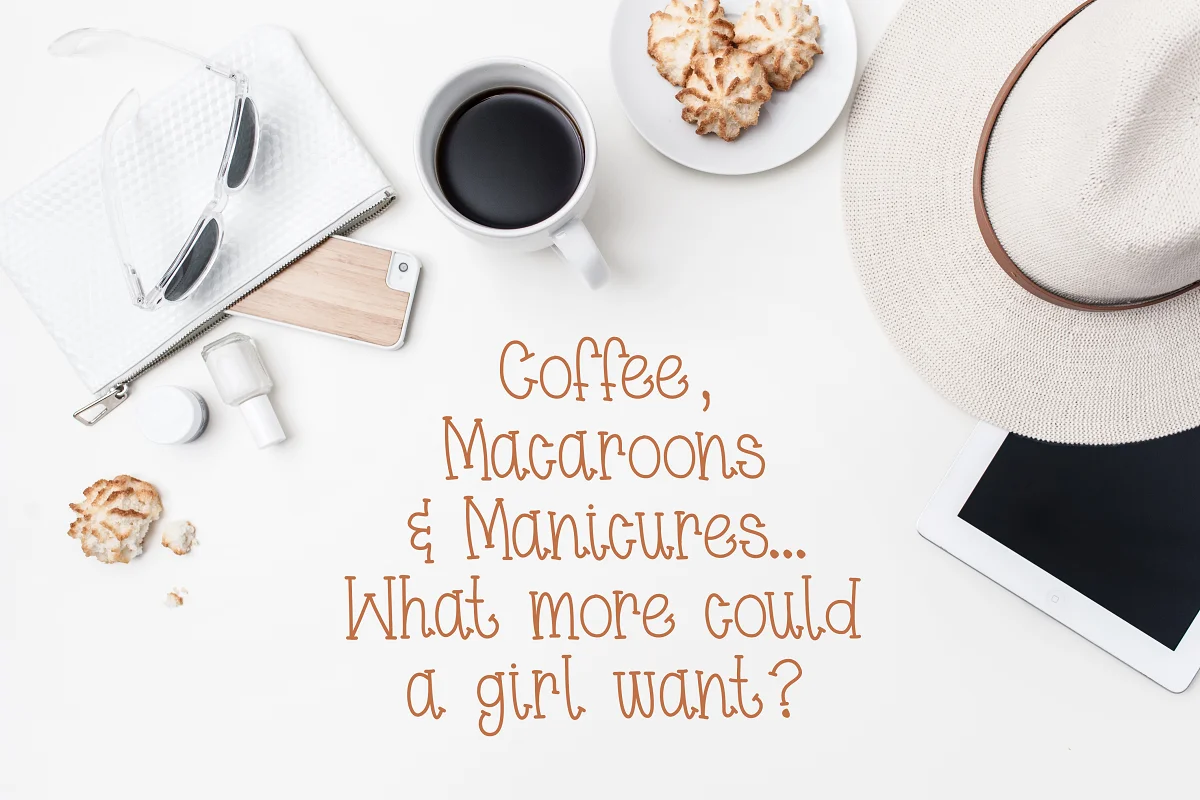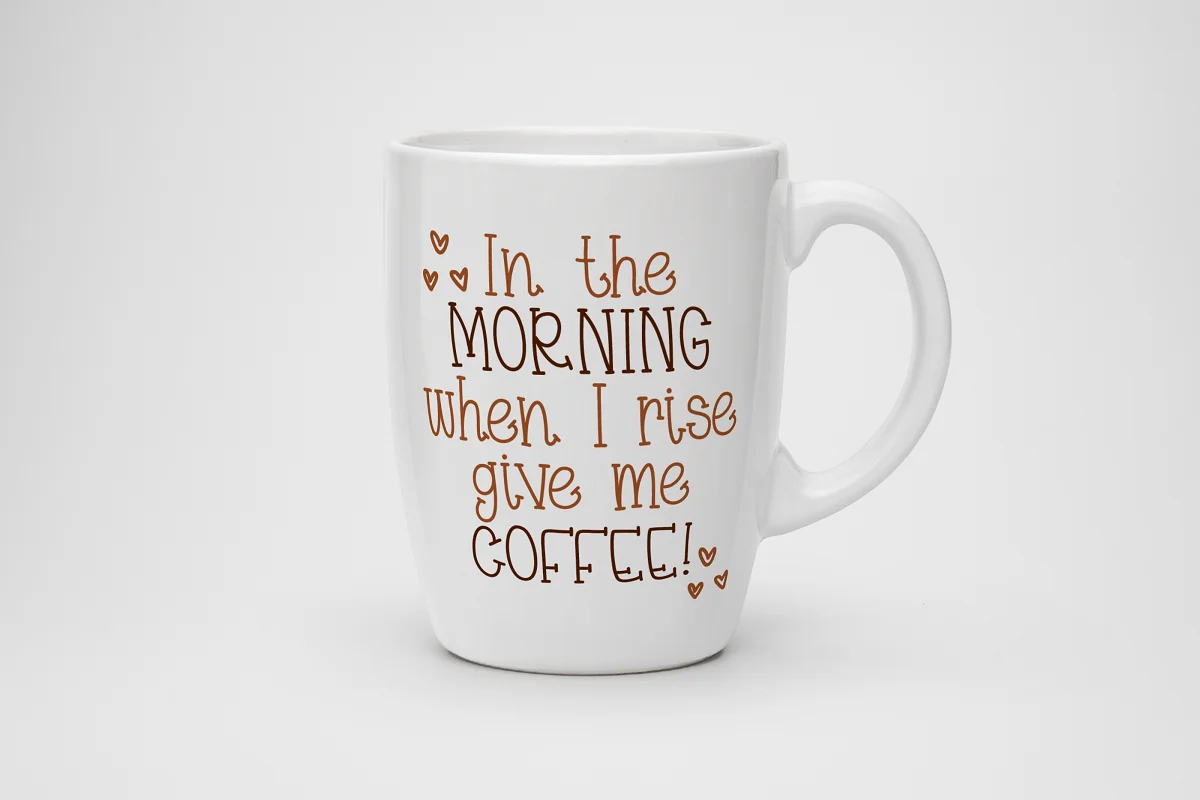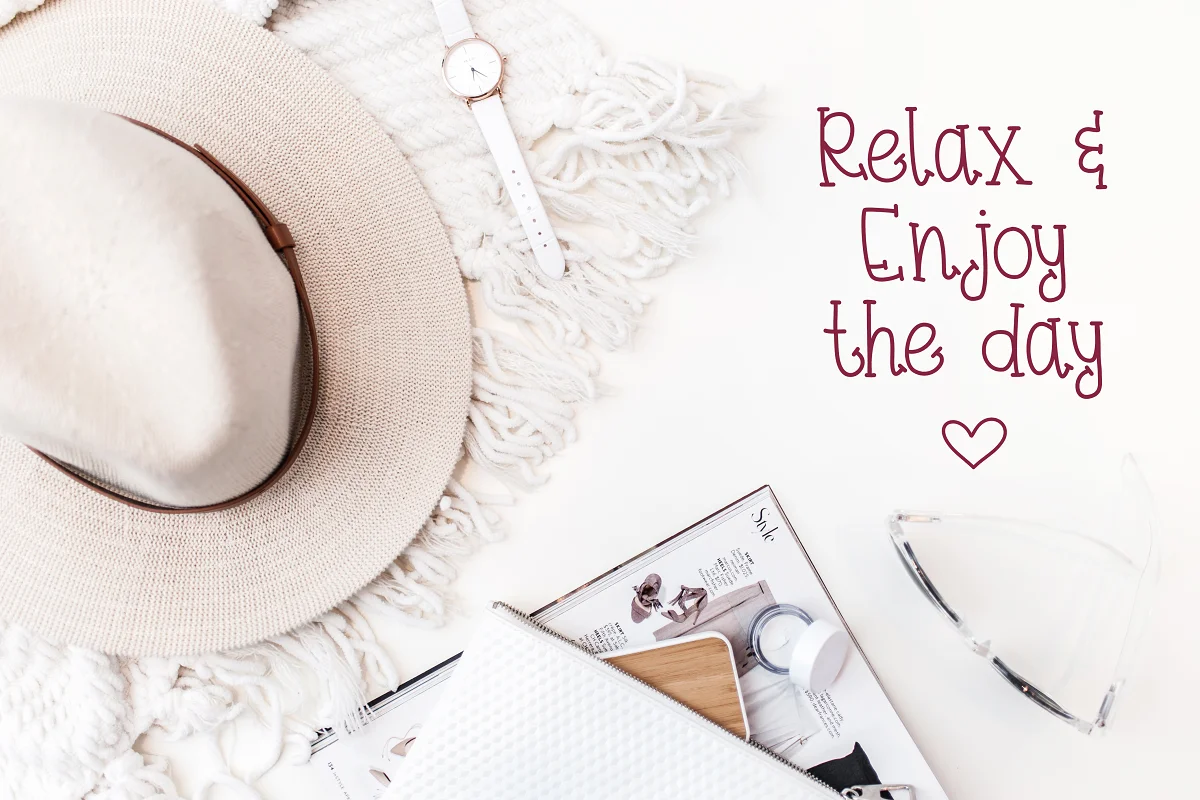
About the Coffee And Macaroons Font
‘Coffee & Macaroons’ is a hand-lettered serif font that is delightfully quirky. It is super fun to work with and will make your work pop!
Comes with Uppercase, Lowercase, Numeral, Punctuation, and a few neat dingbats. This font file comes in TTF format and works in all software like Word, Photoshop, Illustrator, and more.